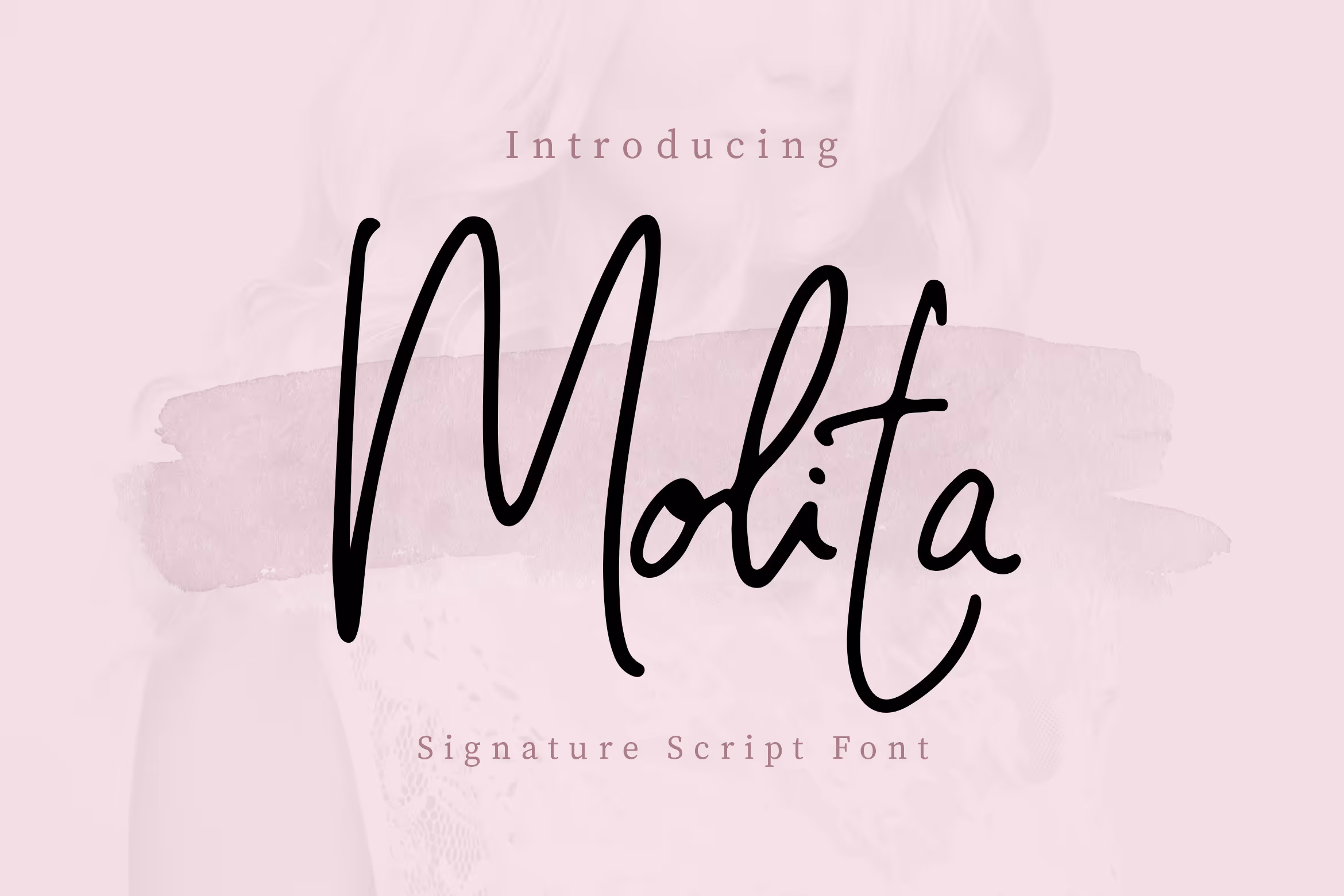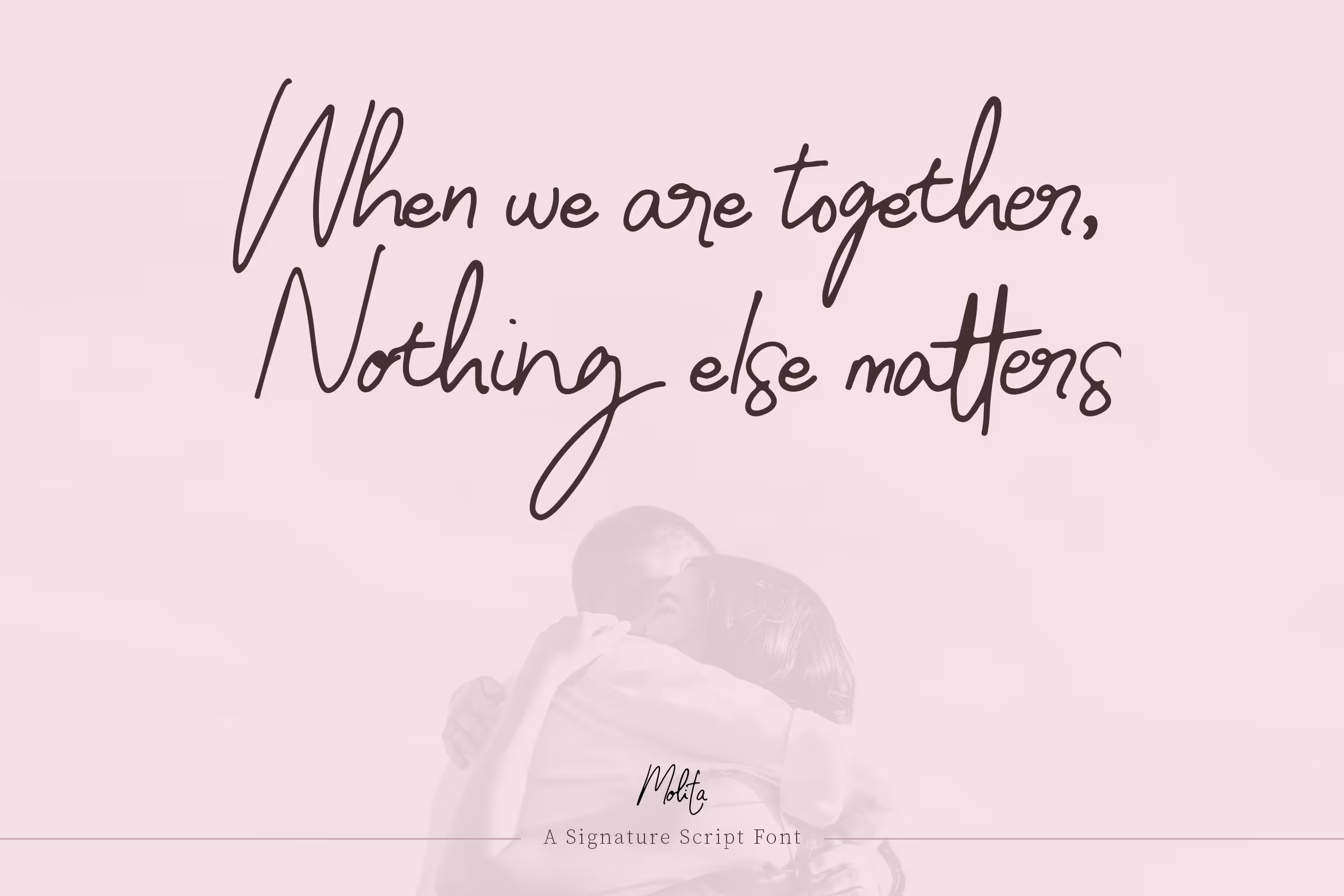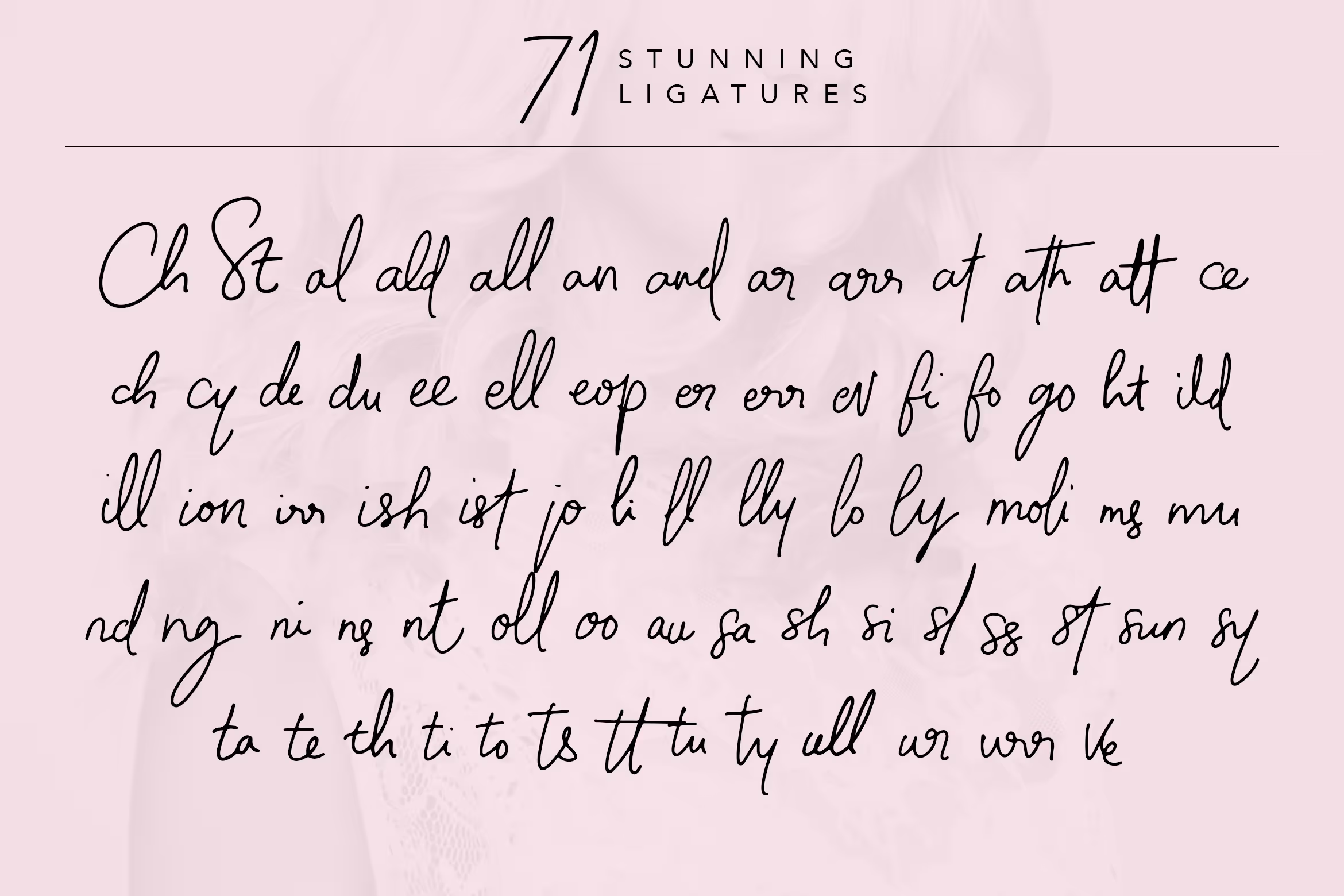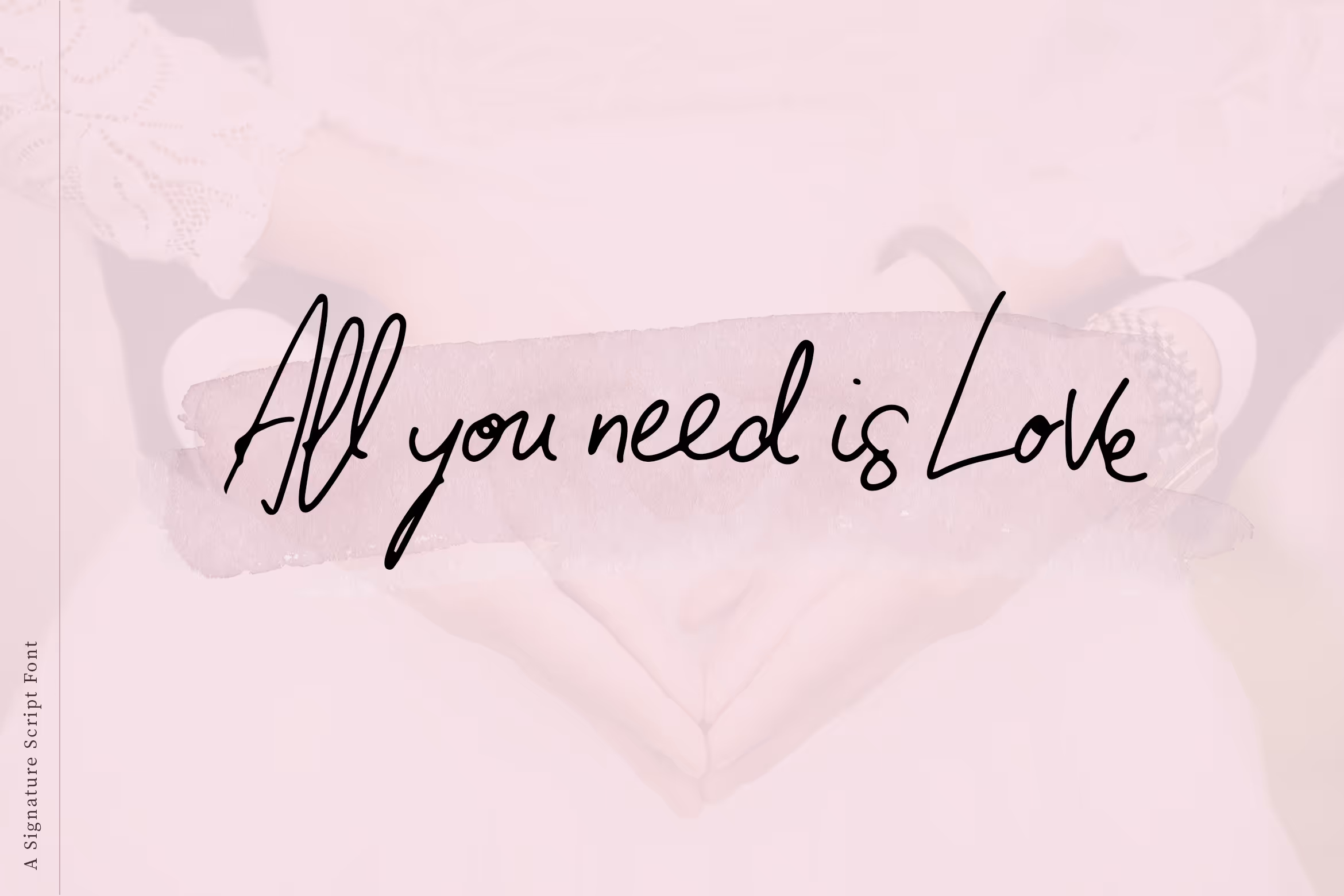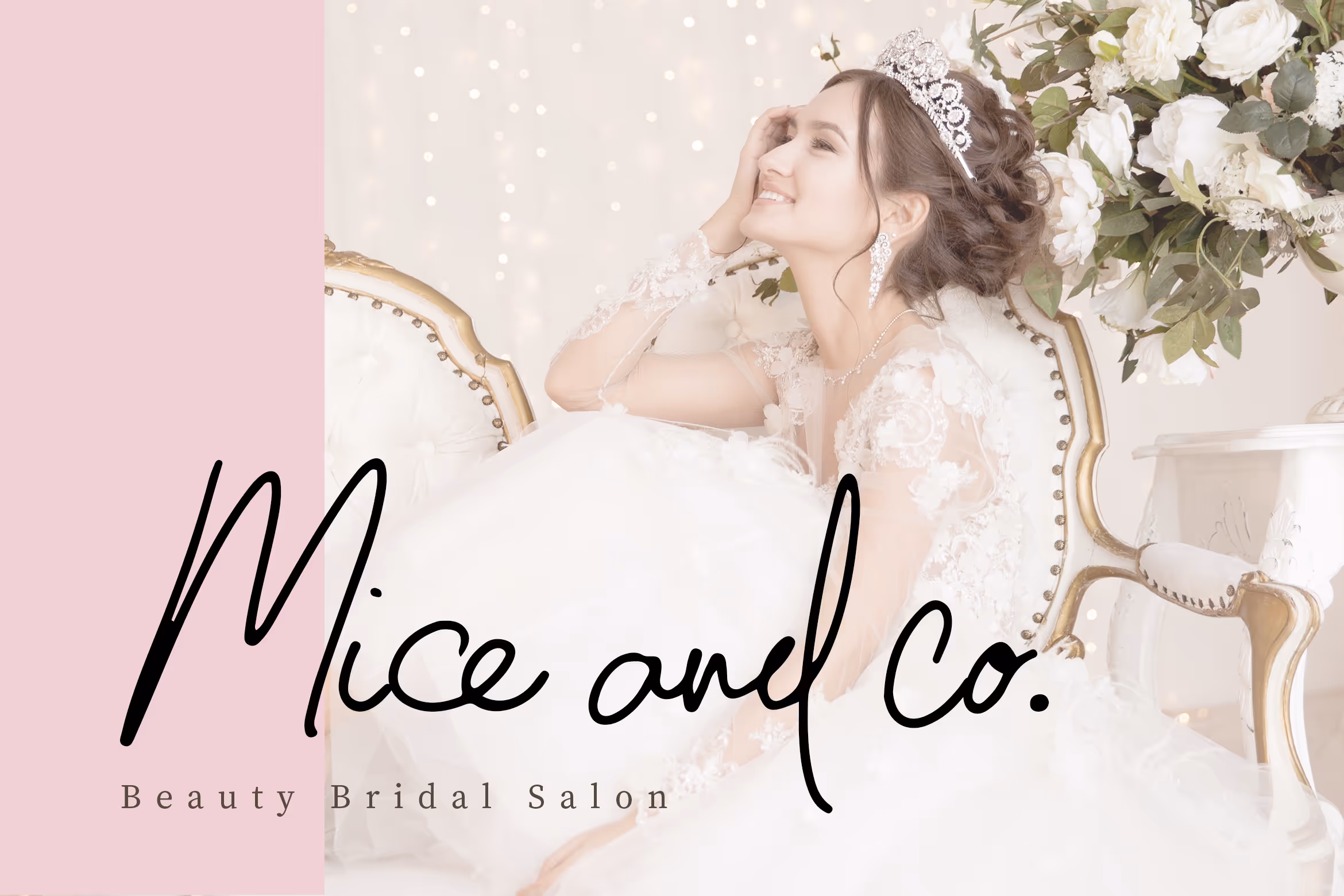
Leaving a remarkable signature is a must and make it real by using Molita, a signature script font that is perfect for branding projects such as logo, presentation, product packaging and many more. It is also a suitable font for wedding and fashion themes, business cards, boutique, hotel or a stylish text overlay to any background image.
This product package is not only containing a full set of the alphabet in uppercase and lowercase letters, punctuation and numbering but also 71 stunning ligatures that will make your signature more elegant and beautiful. These ligatures also will make an eye-catching quote on your social media.